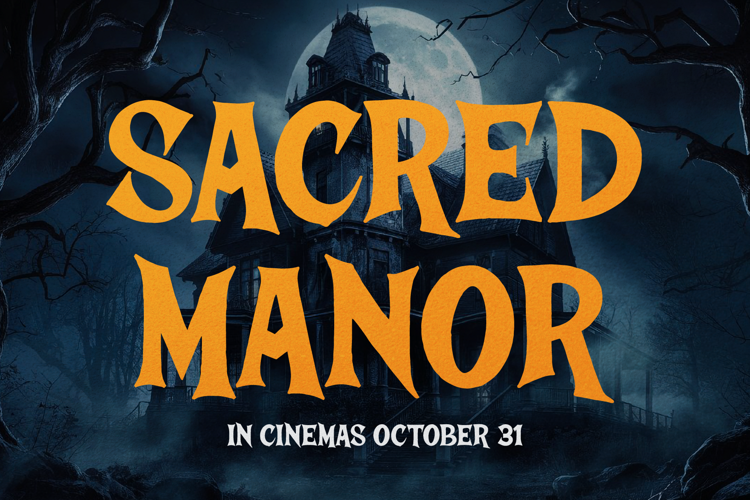
Kroco Casper Font
Kroco Casper | Halloween Horror Font, is suitable for any projects such as: logos, branding projects, homeware designs, product packaging, mugs, quotes, posters, shopping bags, t-shirts, book covers, name card, invitation cards, greeting cards, label, photography, watermark, special events, and all your other lovely projects that need a Horror Font taste.